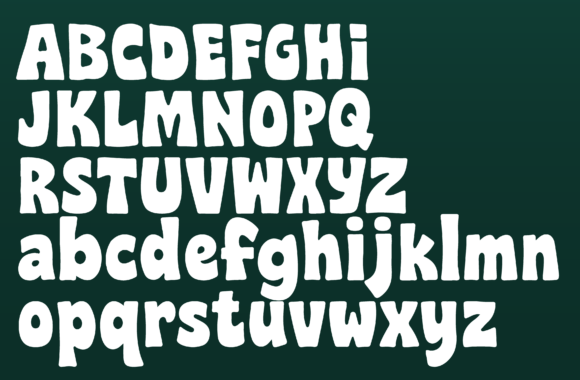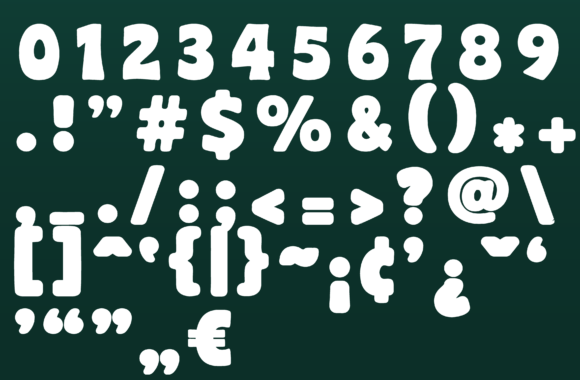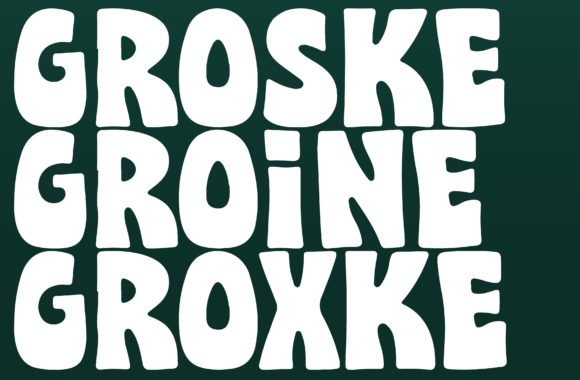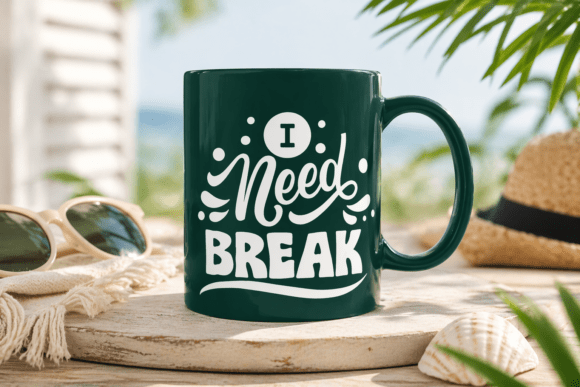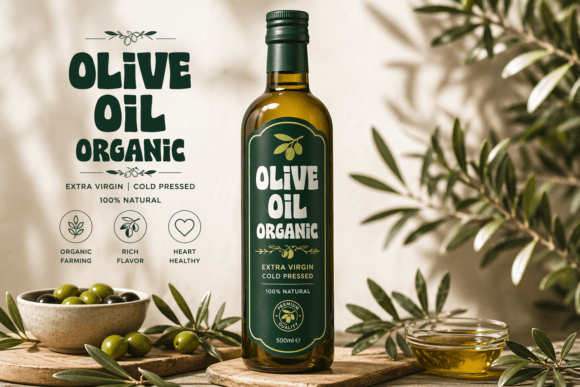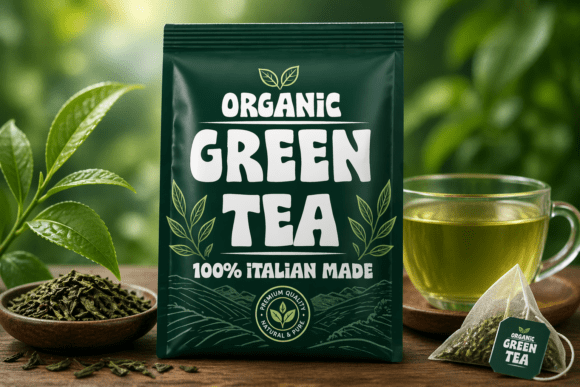
Introduction to Lumora Font
Have you ever stared at a blank page, trying to find the perfect font to bring your creative project to life? That’s where the magic happens – and for many designers, it’s a moment of pure excitement and discovery. When you land on a font that perfectly captures the essence of your brand, it’s like the whole design falls into place. That’s exactly what the Lumora Font promises to deliver – a bold, playful display font that’s sure to make a lasting impression.
Whether you’re designing a logo, packaging, or social media graphics, the Lumora Font is an invaluable resource for creatives. Its chunky letterforms, soft curves, and eye-catching personality make it the perfect choice for designers looking to add a modern touch to their designs. With its clean readability and high visual impact, this font is sure to elevate your brand identity and make your message stand out.
Key Features of Lumora Font
- High-quality design resource suitable for creative projects, offering a unique and modern aesthetic.
- Includes a wide range of characters and glyphs, making it an ideal choice for multilingual creative projects.
Honest Review: Lumora Font
As a designer, I’m always on the lookout for high-quality design resources that can elevate my creative projects. Recently, I came across the Lumora Font, and I must say, it’s been a game-changer.
What works well: ✨ The Lumora Font is incredibly versatile, making it suitable for a wide range of design projects, from digital products to print materials. Its clean and modern aesthetic is both visually appealing and easy to read. I’ve used it for various design projects, and it’s always been a hit with my clients. The font is also available for free download, which is a major plus for designers on a budget.
However, I do have a few limitations to mention: ⚠️ The font could benefit from a more extensive character set, which would make it more suitable for complex design projects. Additionally, some users may find the font too minimalist, which can be a drawback for those who prefer more ornate typography.
Overall, I’m thoroughly impressed with the Lumora Font. Its high quality, versatility, and free availability make it an excellent addition to any designer’s toolkit. Whether you’re working on a small design project or a large-scale creative endeavor, the Lumora Font is definitely worth considering.
Lumora Font
The Lumora Font is a versatile design resource ideal for creative projects that require a high-quality font with a transparent background. This free download is perfect for designers and artists looking to add a unique touch to their work.
Tips for Getting the Most Out of Lumora Font
To get the most out of the Lumora Font, experiment with different font sizes, colors, and combinations to create unique and eye-catching designs. The transparent background feature of the Lumora Font makes it perfect for layering and combining with other design elements.
Common Use Cases for Lumora Font
The Lumora Font is perfect for a variety of creative projects, including logos, graphics, illustrations, presentations, and documents. Its high-quality design and transparent background make it a versatile design resource for any project.
Is the Lumora Font available for use in digital applications?
Yes, the Lumora Font is optimized for use in digital applications, including websites, mobile apps, and other interactive projects. The font is designed to be highly legible and scalable, making it perfect for use in a variety of digital contexts.